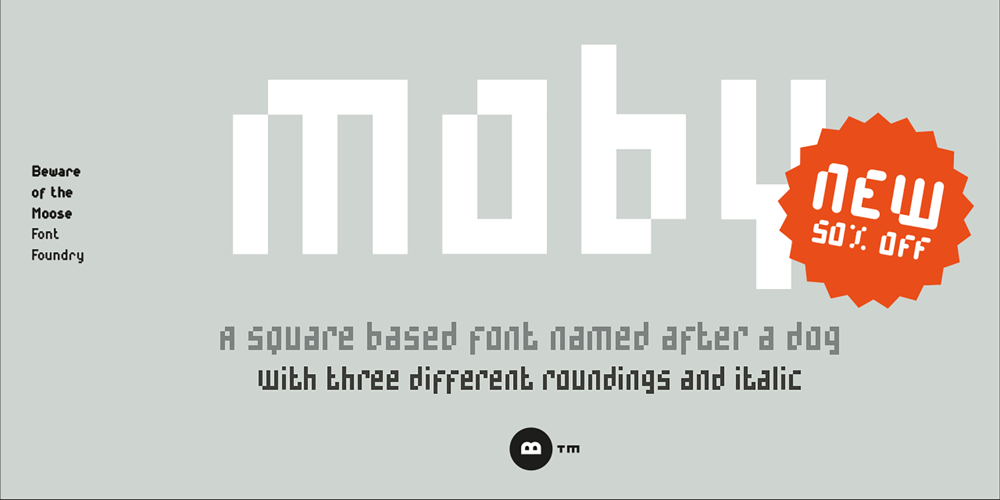
Moby
Moby font
Moby Font Family was designed by Hermen Grasman and published by Beware of the moose. Moby contains 8 styles and family package options. Moby is based on a grid of squares and has four different variations – from sharp corners to rounded with two steps in between. The letter is playful despite its grid and has the most common punctuation marks making the moby usable in most western european languages … and even usable for Icelandic texts. The letter is named after my dog, the cutest Barbet (French water dog) in the world.